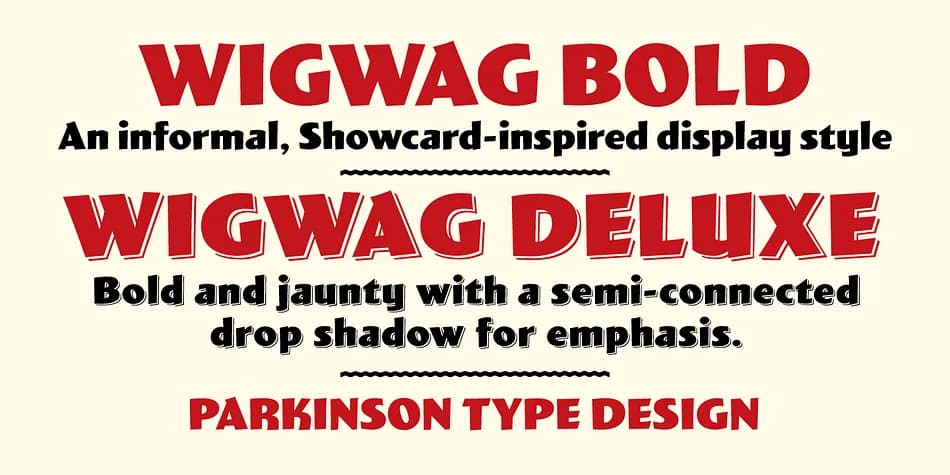
About Wigwag Font
Wigwag channels that energetic, hand-drawn confidence of 1950s hand-lettering. Designed by Jim Parkinson and recently refreshed, Wigwag draws inspiration from the bold, informal styles that defined mid-century showcard lettering, particularly the work of Speedball artists like Ross George, Cecil Wade, and Samuel Welo.
Coming in two distinct weights (Bold and Deluxe), this typeface brings genuine personality to every project. The informal stroke work captures that laid-back energy visible in classic American advertising and entertainment signage from the era, feeling human and approachable. Use it for vintage event posters, midcentury diner menus and signage, handmade greeting cards and gift tags, playful boutique branding packages, or DIY craft projects that need authentic period charm. Its letterforms carry enough character to work as a headline font while staying readable enough for short passages of text when maximum visual impact matters. What makes Wigwag compelling is that it doesn't feel like a novelty typeface; it's grounded in genuine lettering tradition, giving it real staying power across diverse design applications.
Pair it with a clean, contemporary sans-serif for body copy or secondary text to establish strong visual hierarchy and let both styles breathe. The contrast between Wigwag's expressive warmth and geometric restraint creates genuine sophistication in layouts. You'll find it on Creative Fabrica, ready to bring retro character to your next project.
Wigwag Font is a decorative font that shines as a display or heading face. Pair it with a clean sans-serif or serif font for body text β the contrast creates a clear hierarchy while the two styles stay balanced and easy to read.